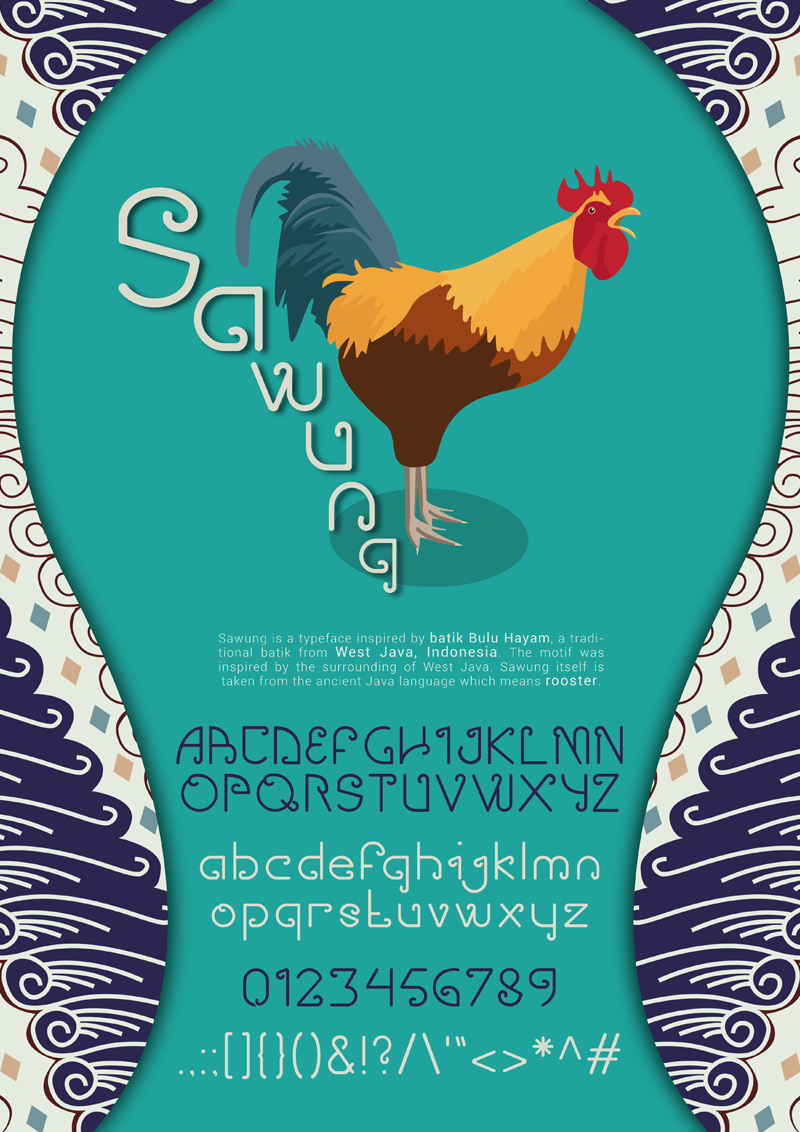
Font name: | Sawung |
hello! this font is inspired by Indonesia's Batik called Batik Bulu Hayam. it's a traditional Batik from Garut, West Java, Indonesia. Sawung is taken from ancient Java language which means rooster. this font is for PERSONAL USE only! if you want to use it for commercial use, please contact me first. contact me by email at e12190084@john.petra.ac.id thankyou! dont forget to check my ig too! ig: @munlightdream xo, your moonlight. |